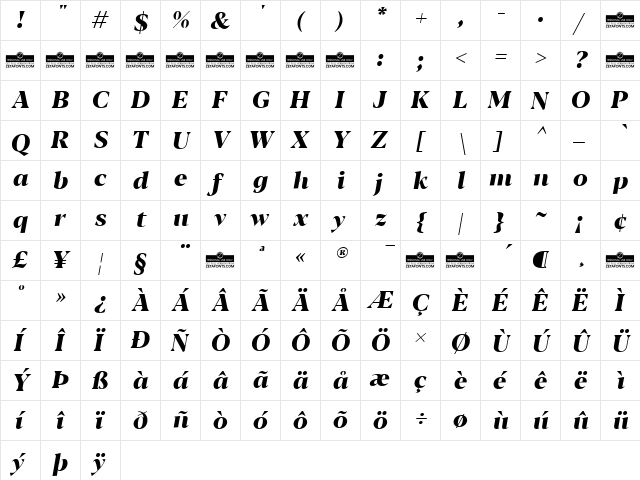
Blacker Display ExtraBold Italic Font Preview
| Foundry | Cosimo Lorenzo Pancini & Francesco Canovaro |
| Designer | Cosimo Lorenzo Pancini & Francesco Canovaro |
Design Context for Blacker Display Typeface
Blacker Display is built around its visual character rather than neutral utility — its distinctive forms are designed to make an impression at display sizes. Its italic angle brings a sense of urgency and motion to the letterforms. Its bold stroke weight gives it real presence on the page.
Font Pairing: Pair with a clean neutral sans-serif for body copy to let Blacker Display's character lead without overwhelming the composition.
Pro Tip: Treat Blacker Display as the centrepiece of your typographic hierarchy. One strong heading set in a decorative face can carry an entire layout.